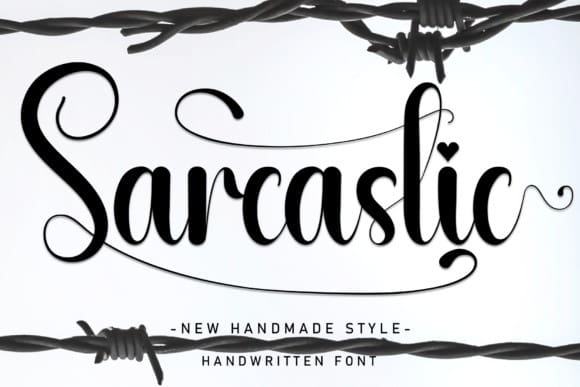
Sarcastic Script Font
Sarcastic Script Font is a sweet and friendly handwritten font. Cute and fun, this font is ideal for writing wedding invitations, cards, or any other design that might need a fun touch!